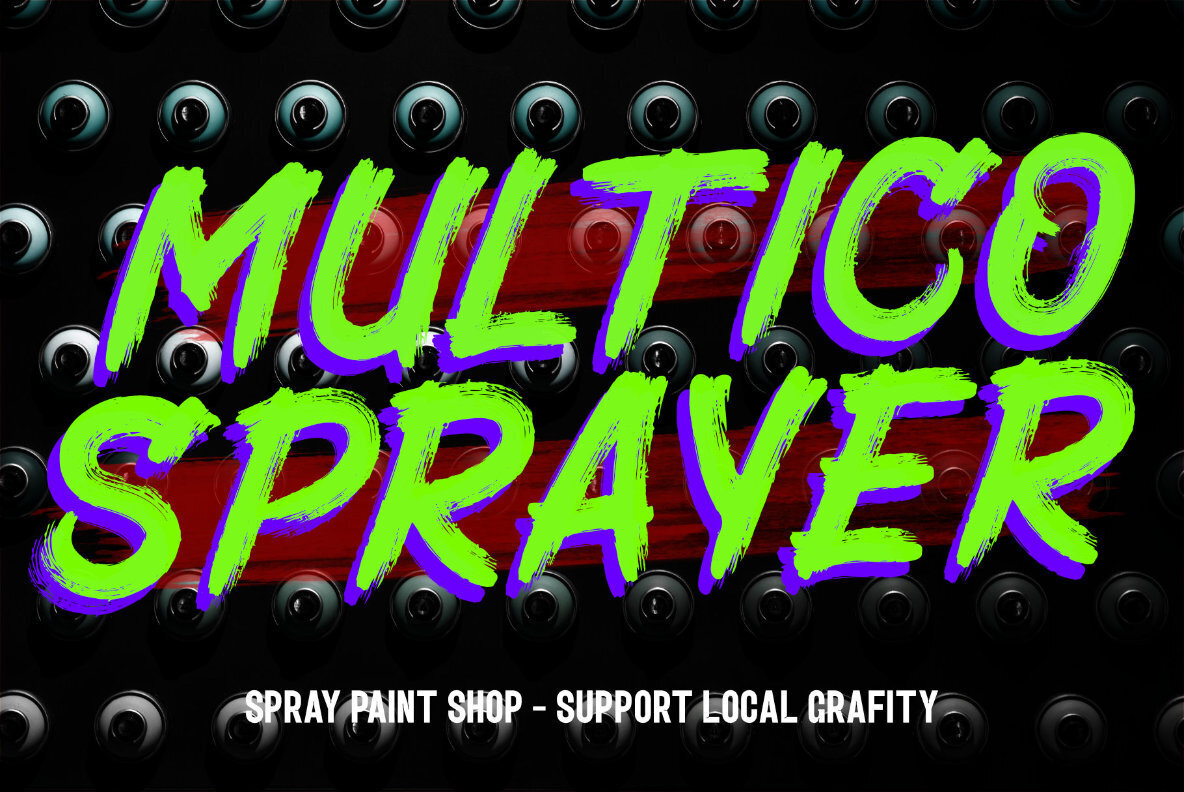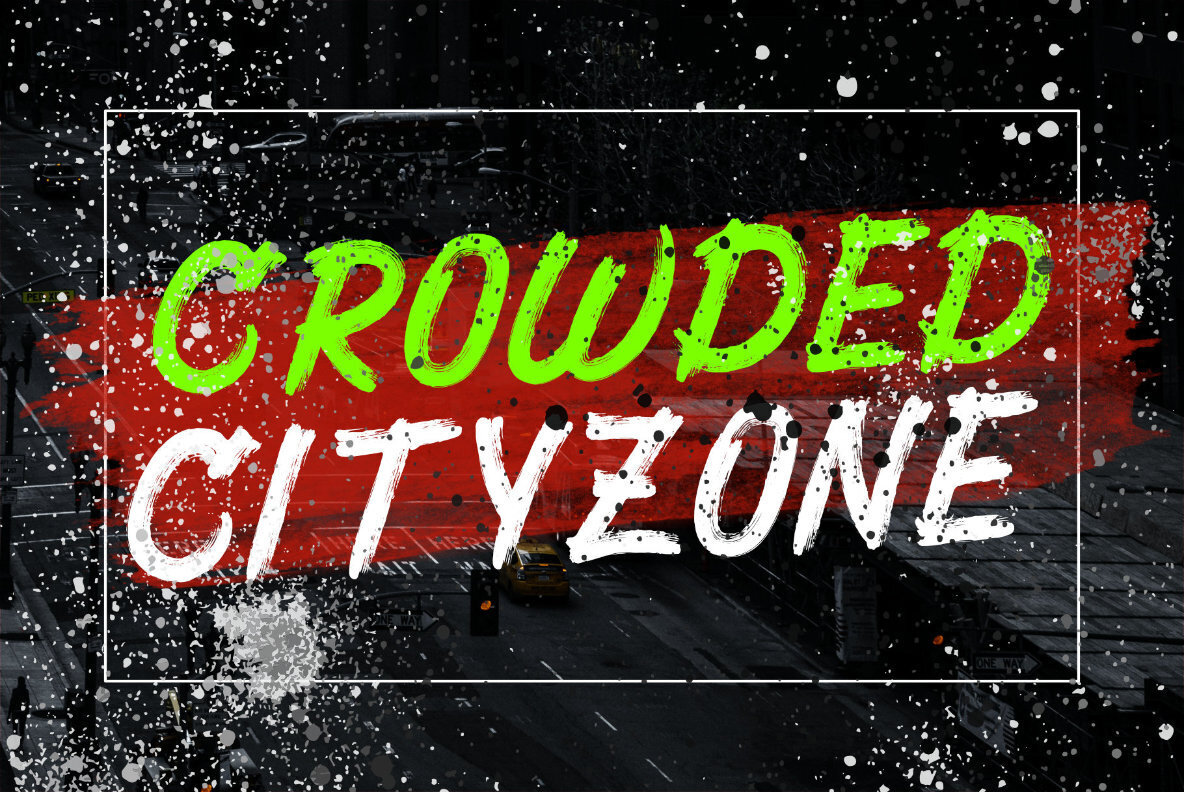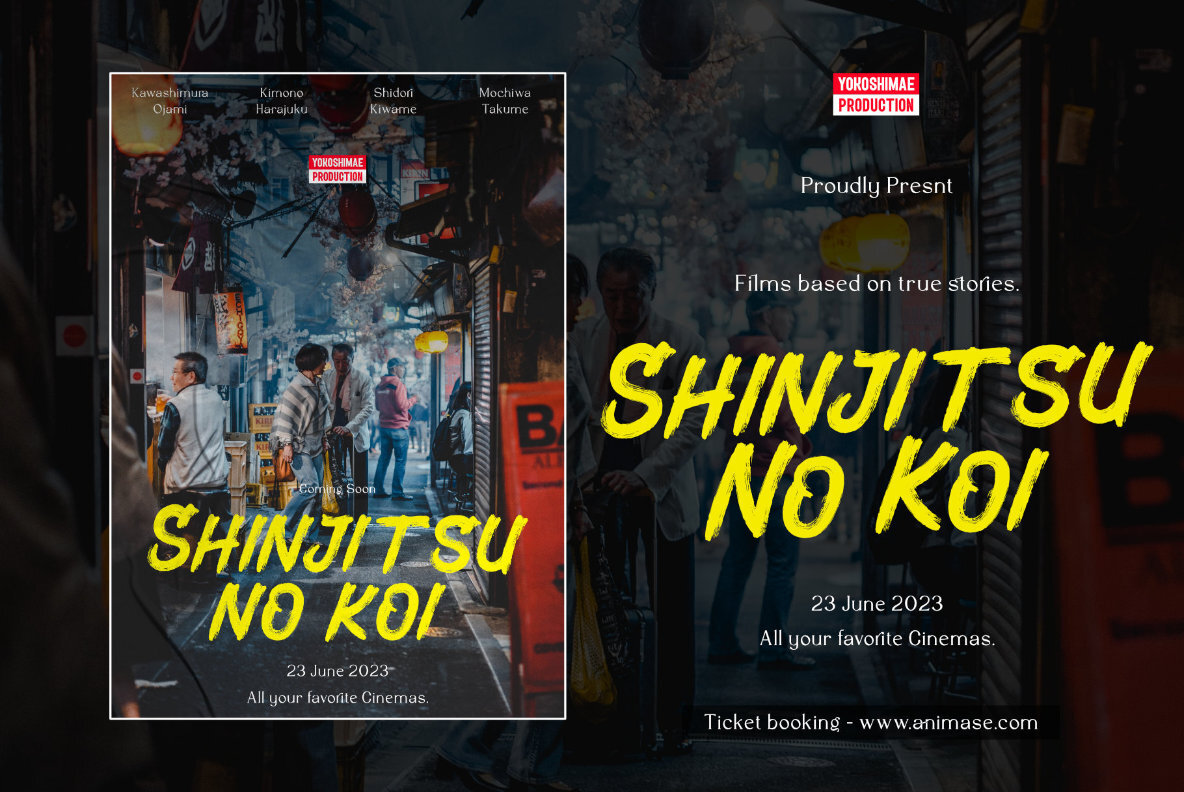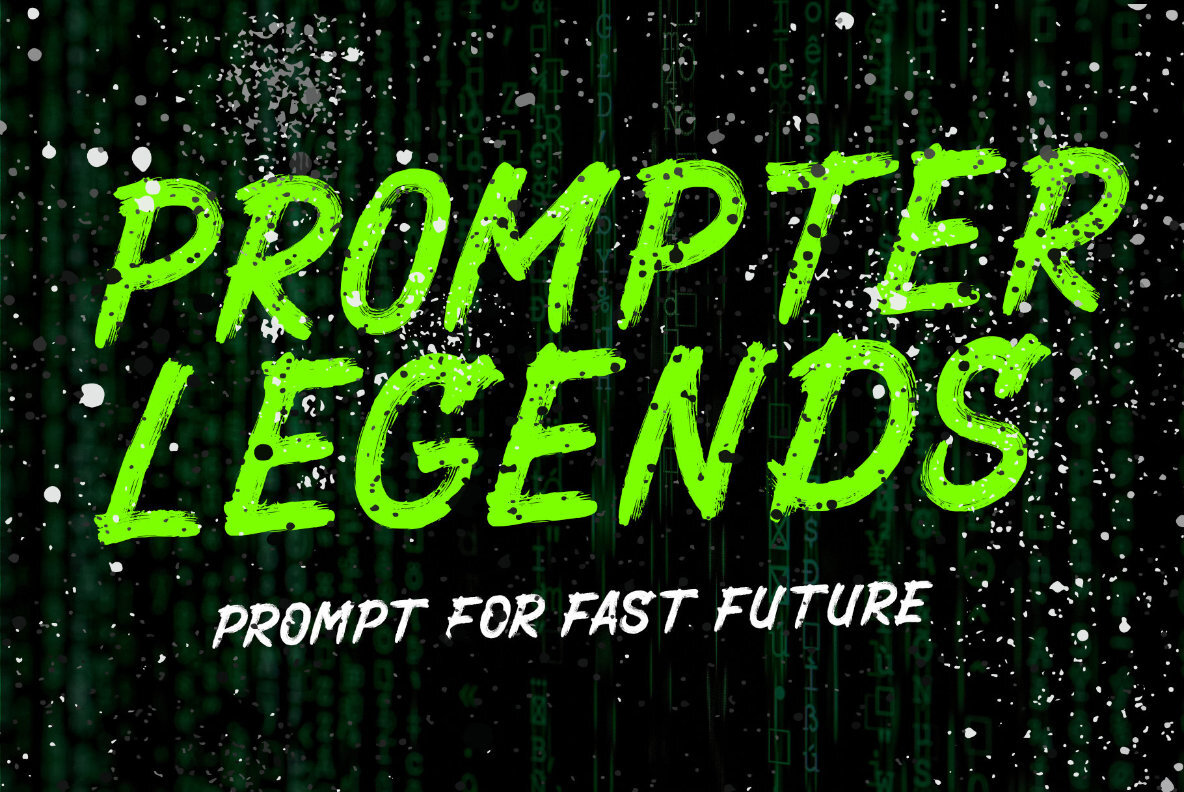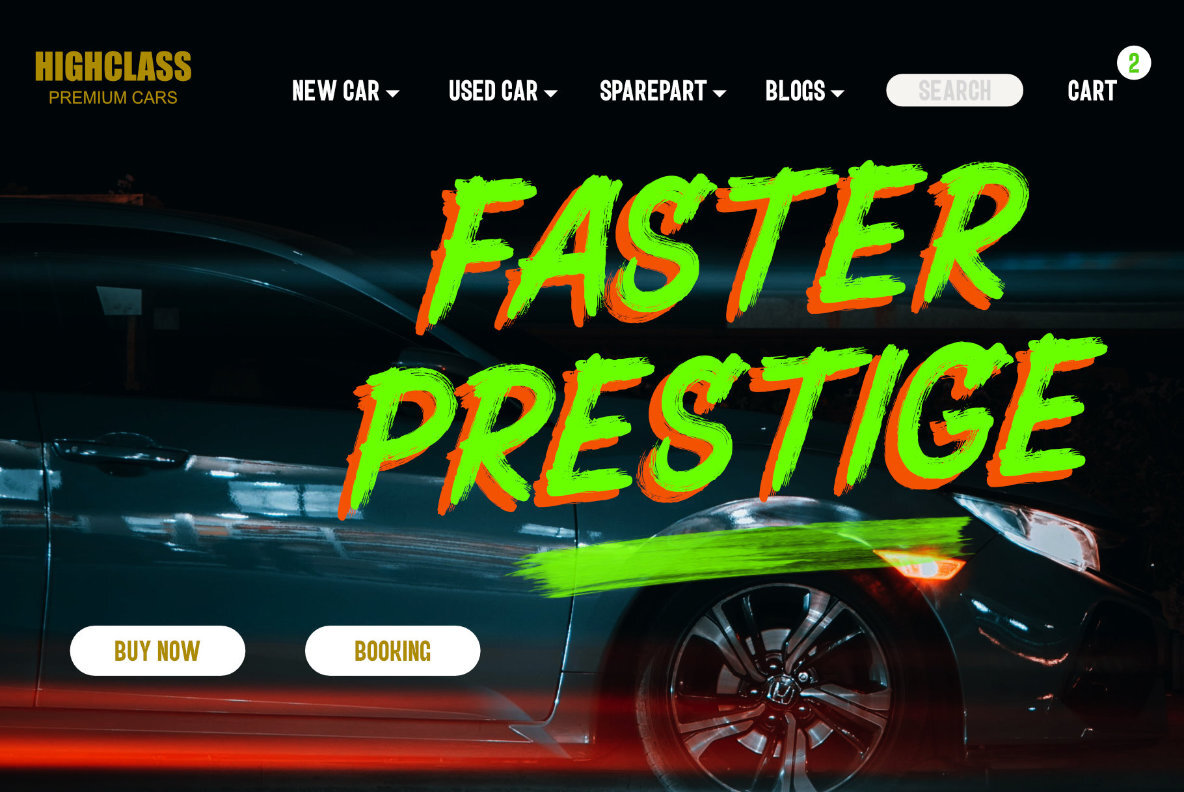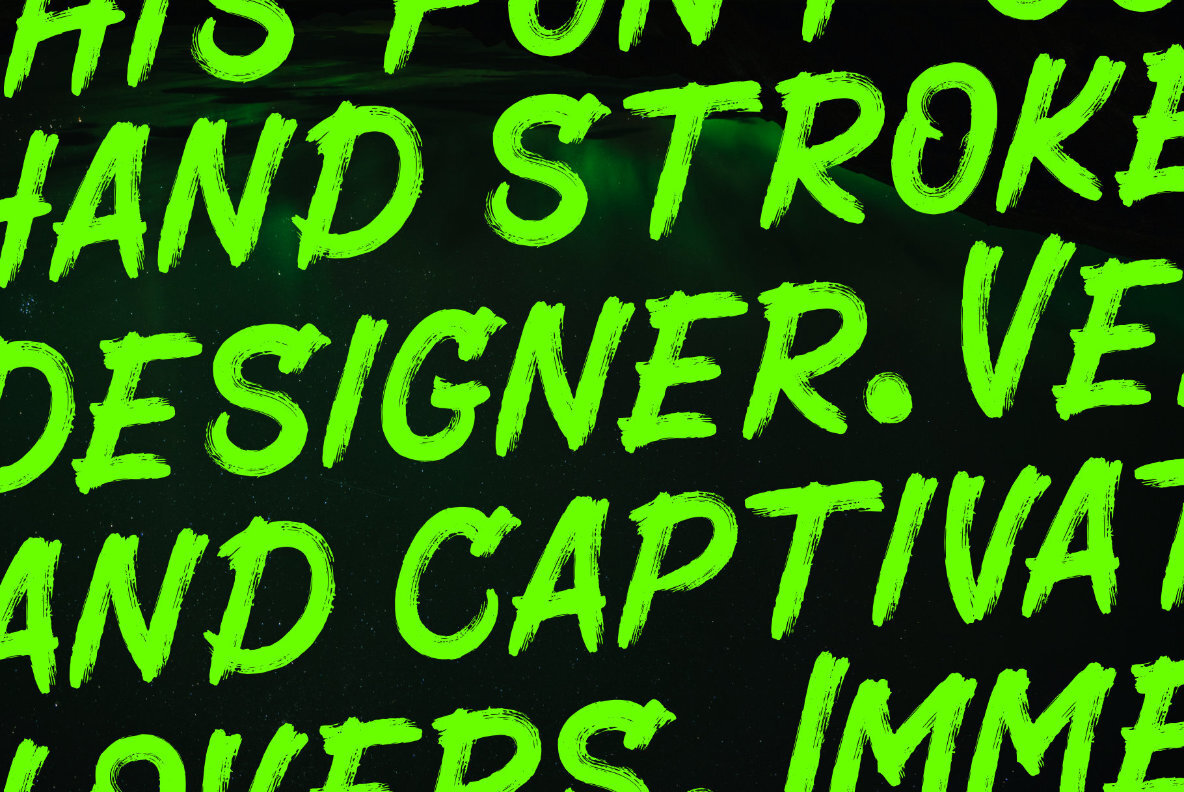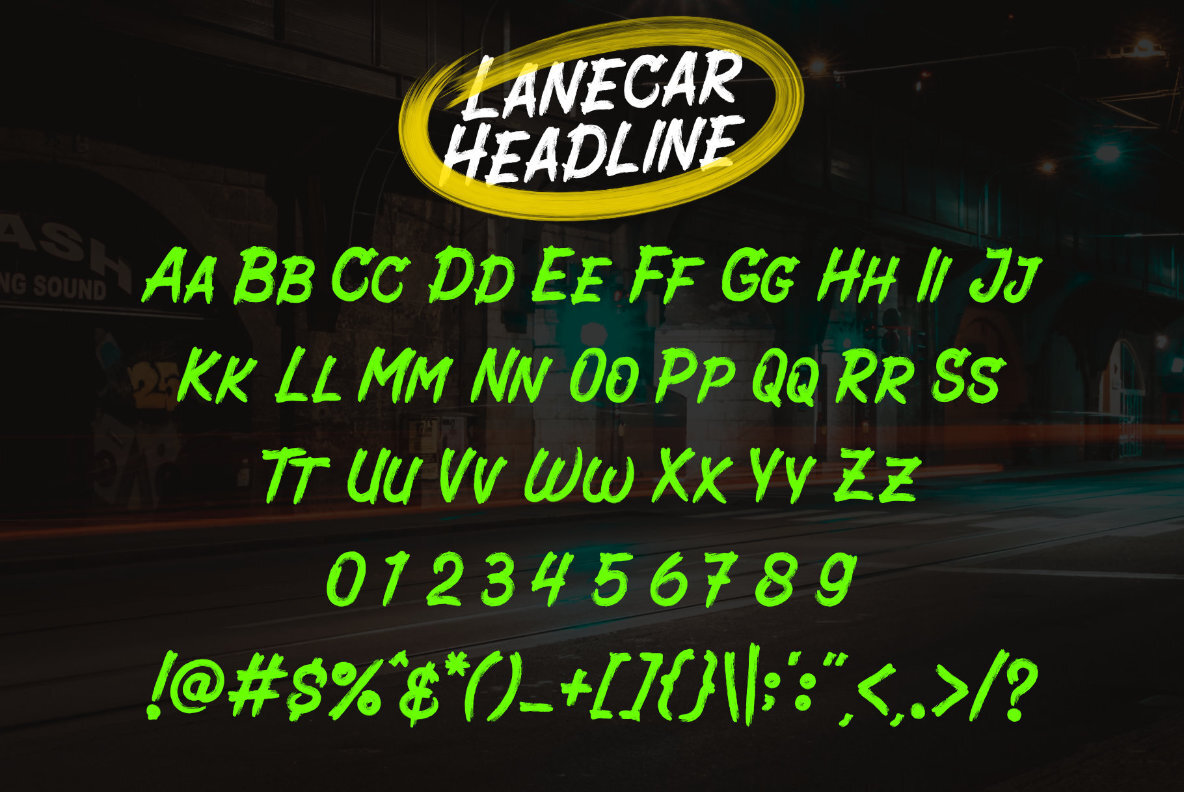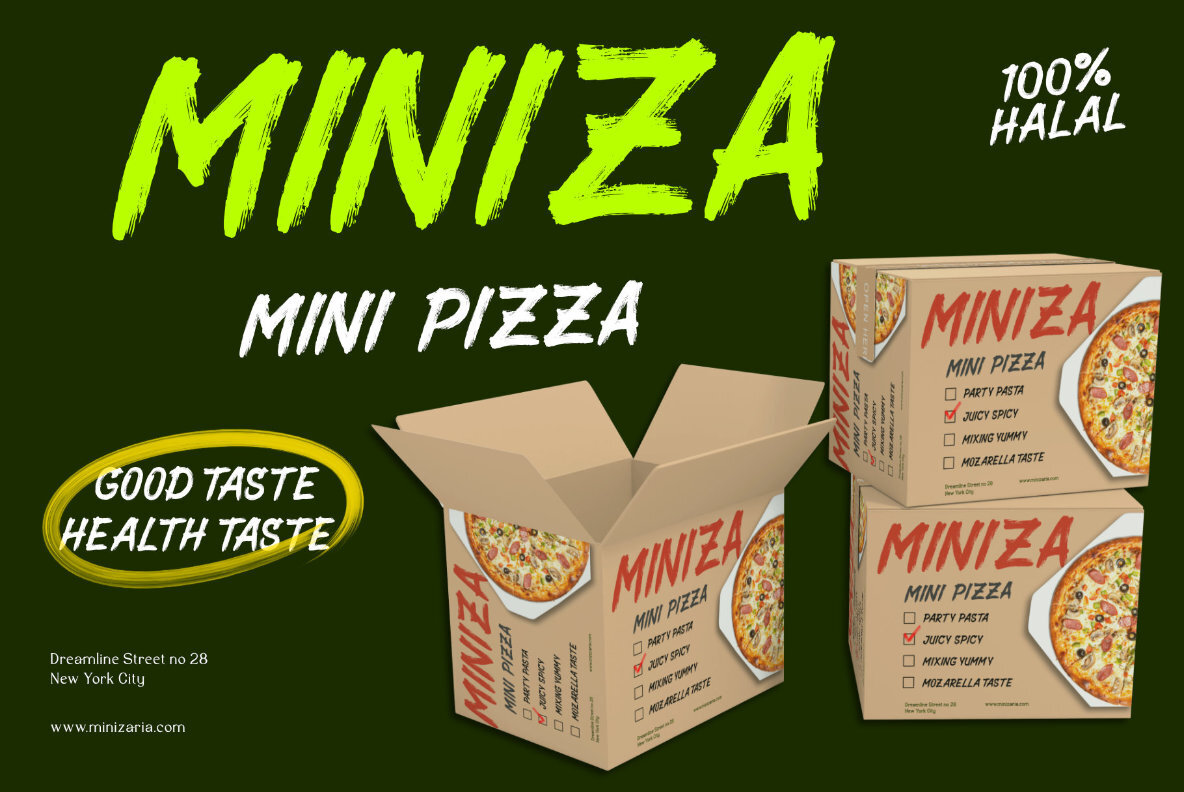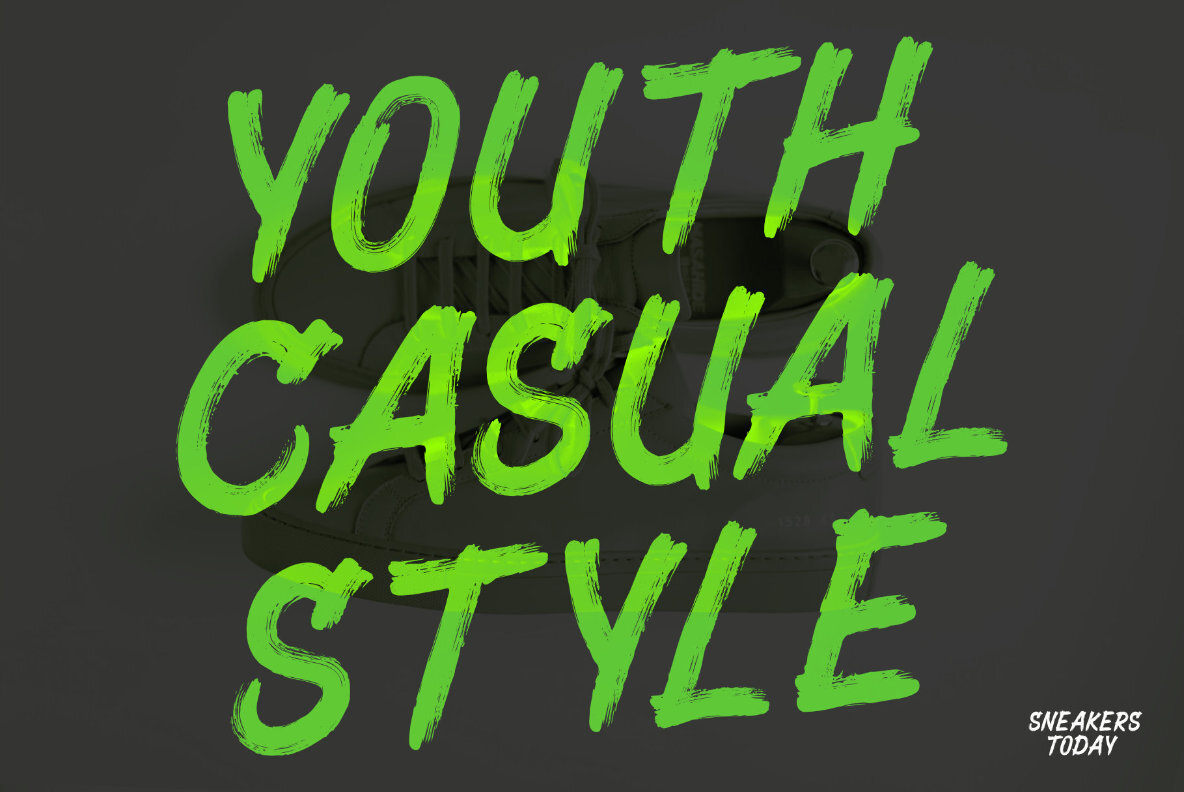
Lanecar Font
Lanecar Regular
Lanecar stands out as an original hand-drawn brush font, distinguished by its pronounced, textured strokes. This font by Lukman Hidayat retains visible brush details, delivering a raw, dynamic feel that enhances its impact in display settings. Its robust construction makes it ideal for headlines, ensuring your text commands attention and leaves a lasting visual impression.Lanecar: Bold Hand-Drawn Brush Font